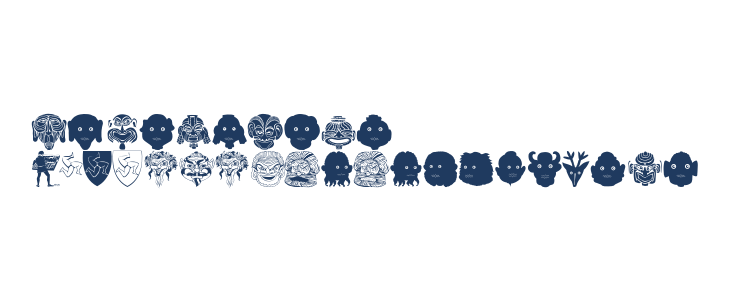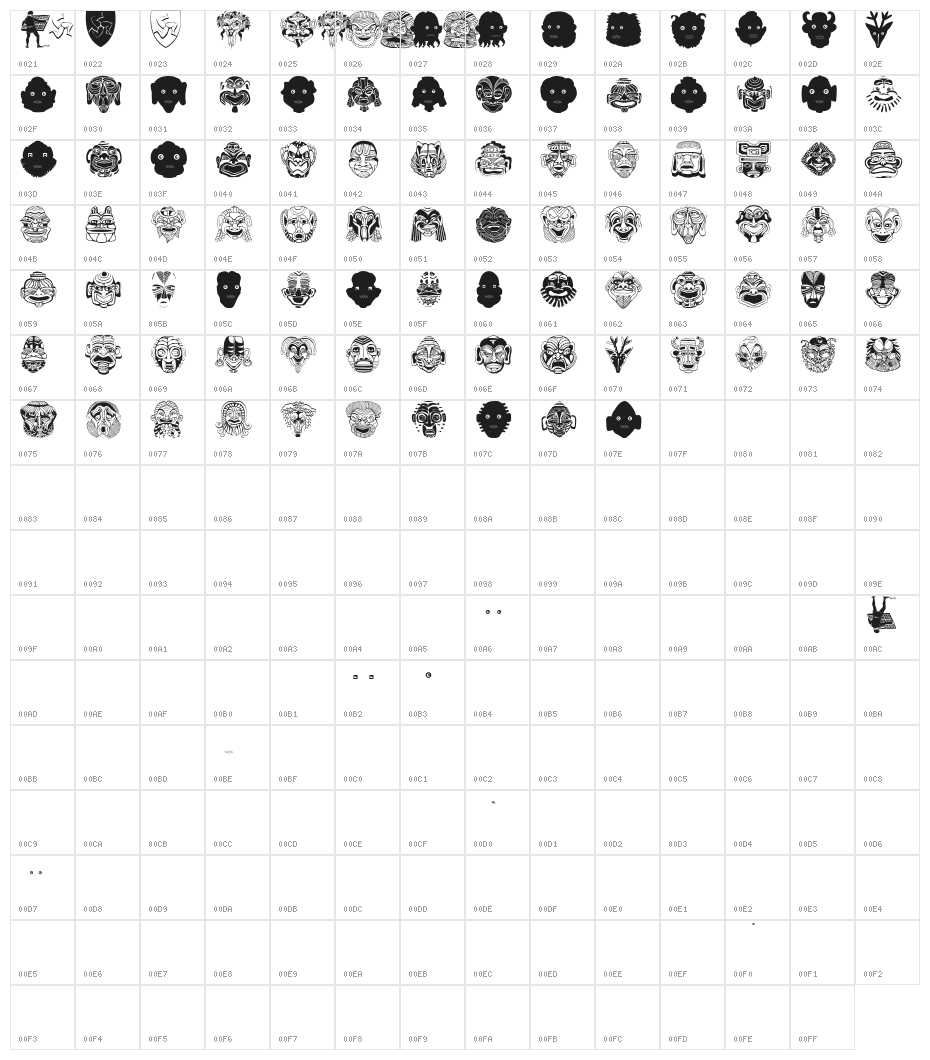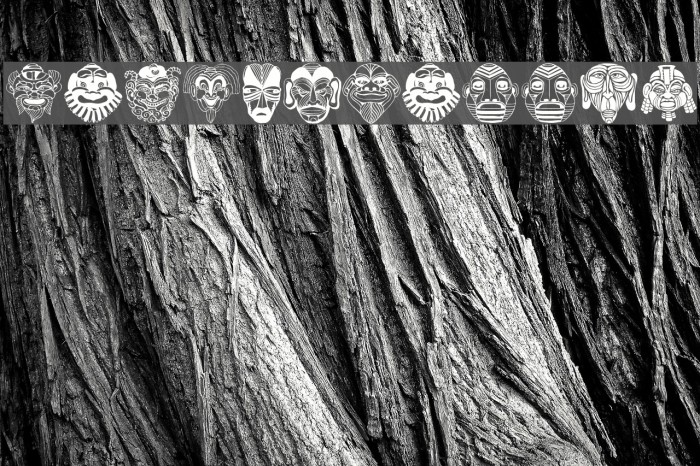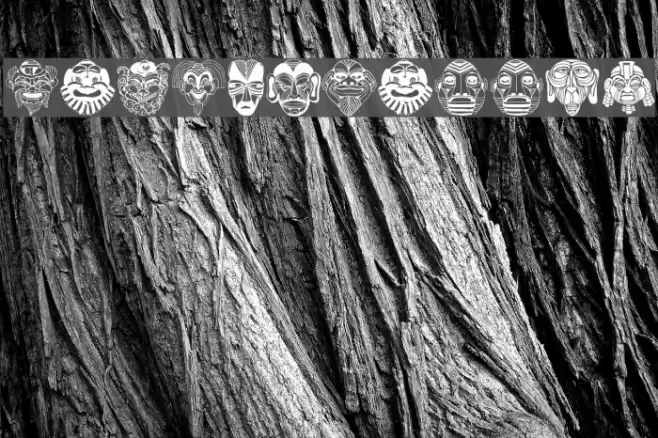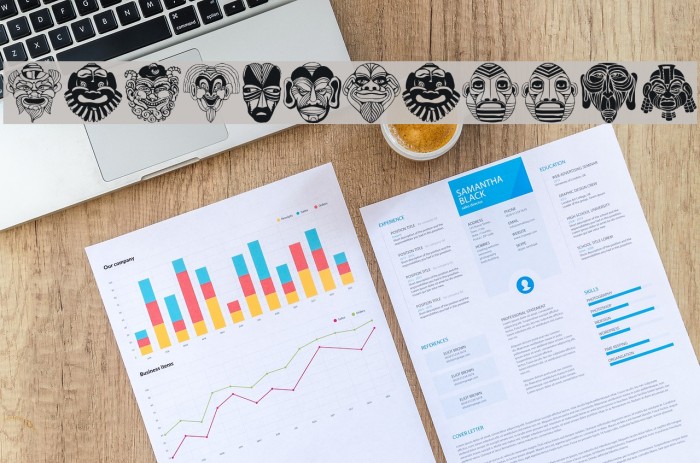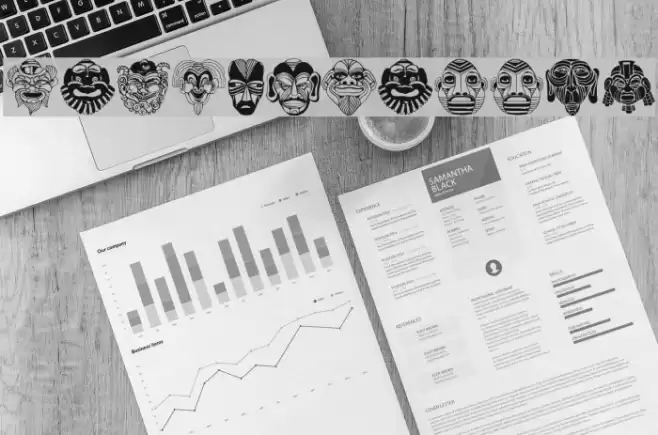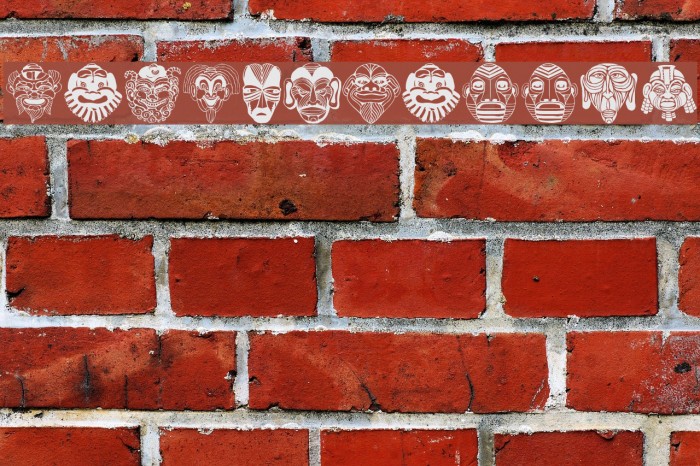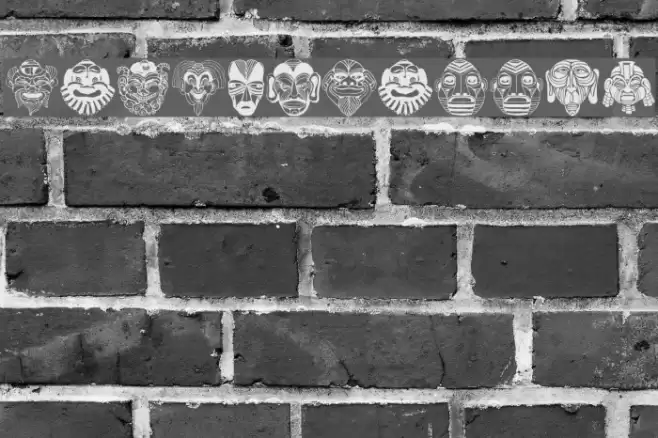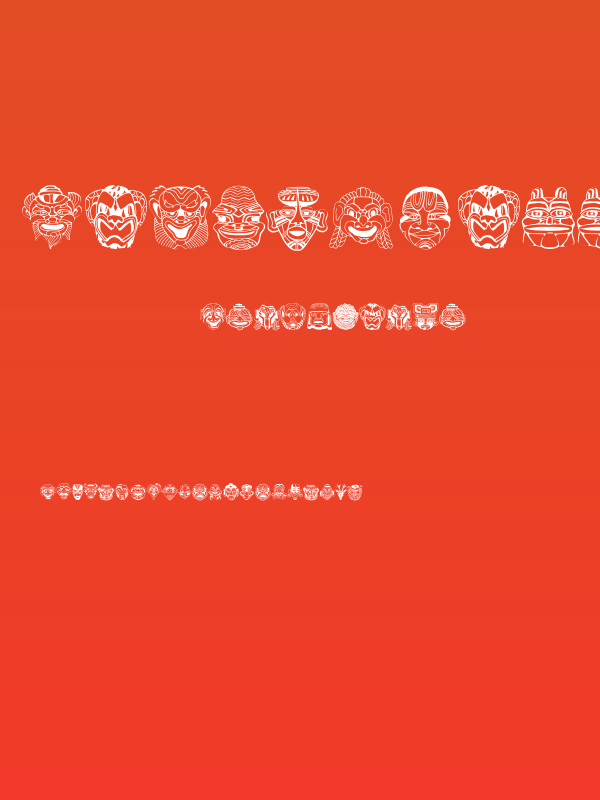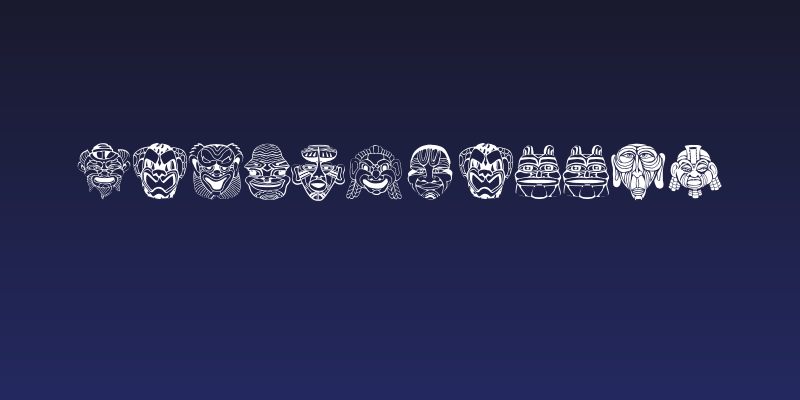
Maskenball04 Font
Maskenball04 Description
A highly decorative and illustrative dingbat font featuring a wide variety of stylized mask designs, each glyph representing a unique face or mask with intricate line work and bold shapes. The characters are not traditional alphanumeric forms but rather pictorial symbols, making it suitable for ornamental or thematic use.
| Overall Style | Decorative, Thematic, Playful |
| Use Case | Ornamentation, Thematic graphics, Visual storytelling |
| Proposed Projects | Event posters, party invitations, cultural festival materials, theatrical programs, graphic design accents, educational materials about world masks. |